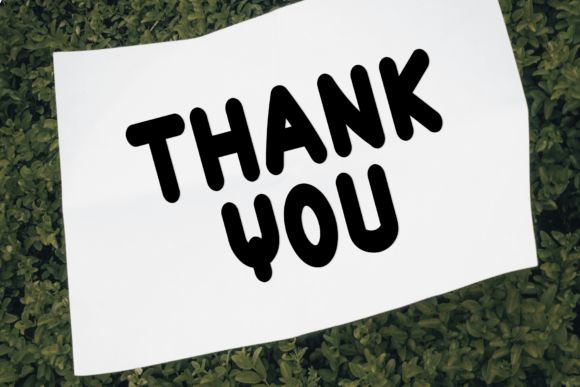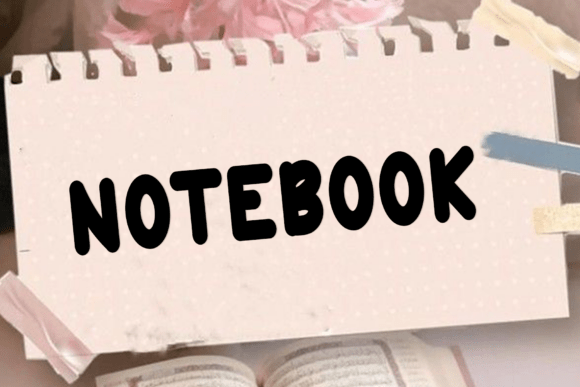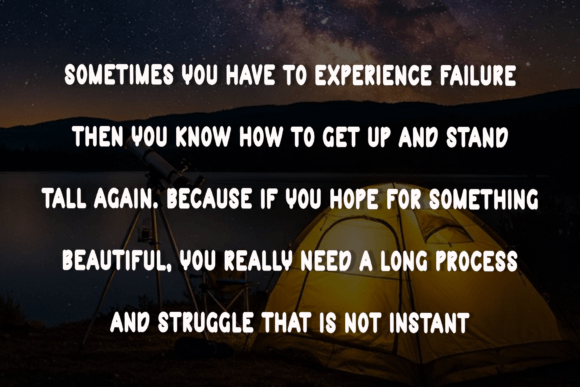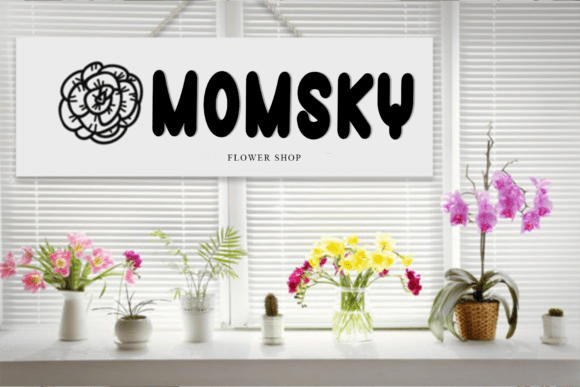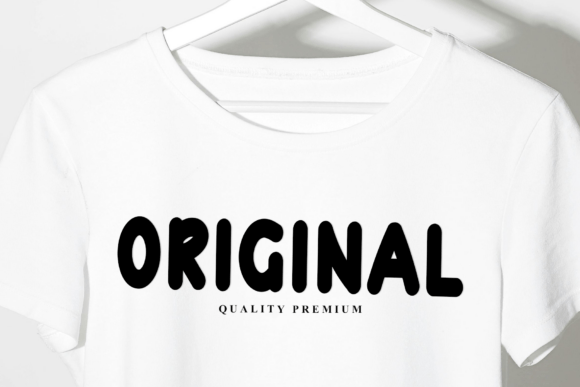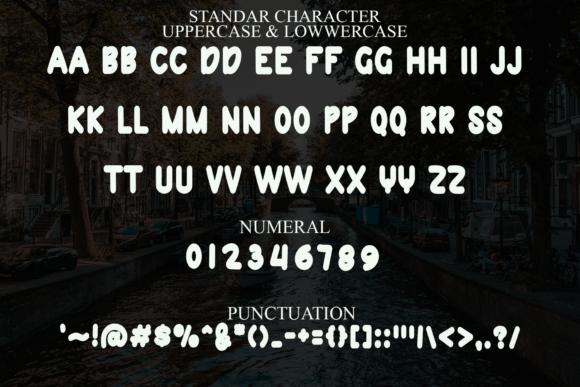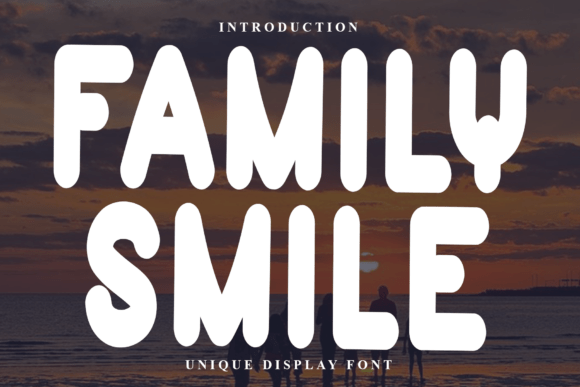
Introducing Family Smile Font: The Ultimate Display Font for a Fun and Playful Touch
Are you looking for a font that can add a dash of fun and playfulness to your design projects? Look no further than Family Smile Font, an ultra-chunky, rounded, and playful unique display font that’s sure to make a lasting impression. With its massive, exaggerated letterforms and soft edges, Family Smile Font is the perfect choice for designers and crafters who want to create visually striking and memorable designs.
What Makes Family Smile Font So Special?
Family Smile Font is designed to make a statement. Its extremely friendly, approachable, and cartoonish aesthetic makes it perfect for children’s products, family event posters, casual apparel, impactful headlines, and any project that needs a strong, fun, and memorable visual statement. The font’s soft edges and rounded letterforms give it a gentle, approachable feel that’s sure to appeal to audiences of all ages.
Key Features of Family Smile Font
• Ultra-chunky and rounded letterforms: Family Smile Font features massive, exaggerated letterforms that are sure to grab attention.
• Soft edges: The font’s soft edges give it a gentle, approachable feel that’s perfect for designs that need to be friendly and inviting.
• Playful and cartoonish aesthetic: Family Smile Font has a fun and playful vibe that’s perfect for designs that need to be memorable and engaging.
• Maximum visual impact: The font is designed to make a statement, making it perfect for headlines, titles, and other design elements that need to stand out.
Use Cases for Family Smile Font
Family Smile Font is a versatile font that can be used in a wide range of design projects, including:
• Children’s products: The font’s playful and cartoonish aesthetic makes it perfect for designs aimed at kids, such as toys, games, and educational materials.
• Family event posters: Family Smile Font is a great choice for posters and flyers advertising family events, such as festivals, parades, and community gatherings.
• Casual apparel: The font’s fun and playful vibe makes it perfect for designs on casual apparel, such as t-shirts, hats, and tote bags.
• Impactful headlines: Family Smile Font is designed to make a statement, making it perfect for headlines and titles that need to grab attention.
Why Choose Family Smile Font?
There are many fonts on the market that claim to be fun and playful, but Family Smile Font stands out from the crowd. Here are just a few reasons why:
• Unique and memorable: Family Smile Font is a one-of-a-kind font that’s sure to make your designs stand out.
• Easily readable: Despite its chunky and rounded letterforms, Family Smile Font is surprisingly easy to read, even at small sizes.
• Highly versatile: The font can be used in a wide range of design projects, from children’s products to casual apparel.
Tips for Using Family Smile Font
Here are a few tips for getting the most out of Family Smile Font:
• Use it sparingly: Family Smile Font is designed to make a statement, so use it sparingly to avoid overwhelming your design.
• Pair it with a simple font: Family Smile Font is a bold and playful font, so pair it with a simple font to create visual contrast.
• Experiment with colors: The font’s playful aesthetic lends itself well to bright and bold colors, so don’t be afraid to experiment.
Family Smile Font is a unique and playful display font that’s perfect for designers and crafters who want to add a fun and playful touch to their designs. With its ultra-chunky and rounded letterforms, soft edges, and cartoonish aesthetic, Family Smile Font is sure to make a lasting impression. Whether you’re designing children’s products, family event posters, casual apparel, or impactful headlines, Family Smile Font is the perfect choice.